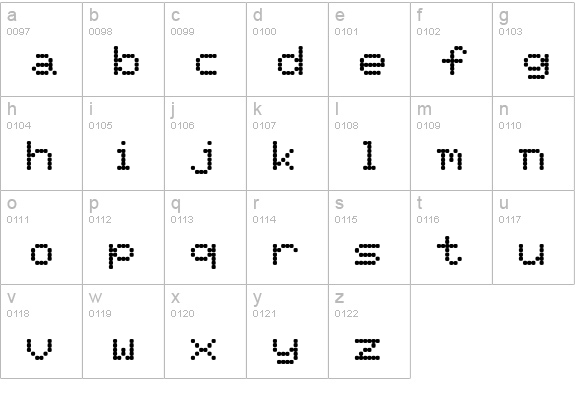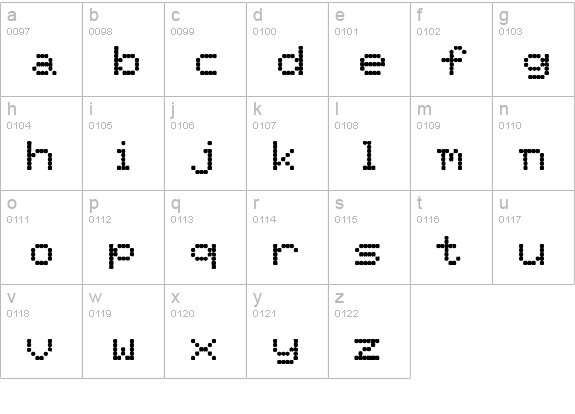
Introducing Pixel- font, a visually captivating typeface that brings a modern twist to the world of digital design. Designed with meticulous attention to detail, this font is perfect for adding a touch of boldness and innovation to your creative projects. Pixel- font features a unique combination of sharp edges and square forms, creating a striking visual impact that commands attention. Its clean and distinct design makes it versatile and suitable for a wide range of applications, whether you're designing a logo, creating digital artwork, or enhancing your website typography. What sets Pixel- font apart is not just its stunning aesthetic, but also its availability. We are thrilled to announce that Pixel- font is available for free download exclusively at FontsMarket.com. Now, you can easily access this remarkable typeface and incorporate it into your designs without any hassle. Whether you're a professional designer, an aspiring artist, or simply someone who appreciates the beauty of typography, Pixel- font is a must-have addition to your font collection. Its bold presence and modern appeal will bring a fresh and contemporary vibe to your designs, instantly elevating them to a whole new level of creativity. So, don't miss out on the opportunity to enhance your designs with Pixel- font. Visit FontsMarket.com today and download this incredible typeface for free. Let your imagination run wild and create stunning visuals that leave a lasting impression. With Pixel- font, the possibilities are endless.